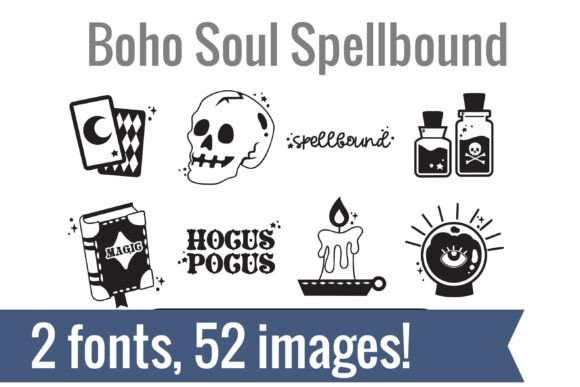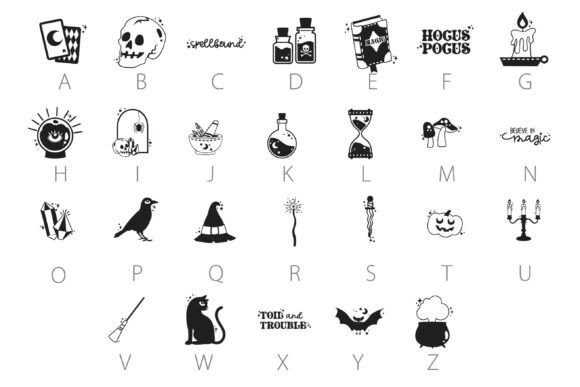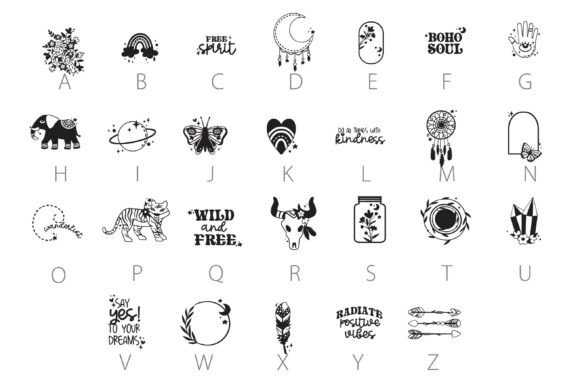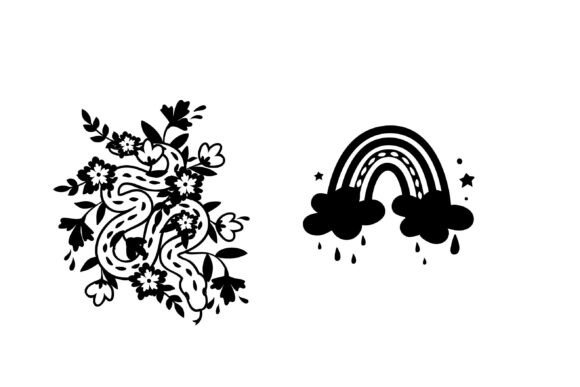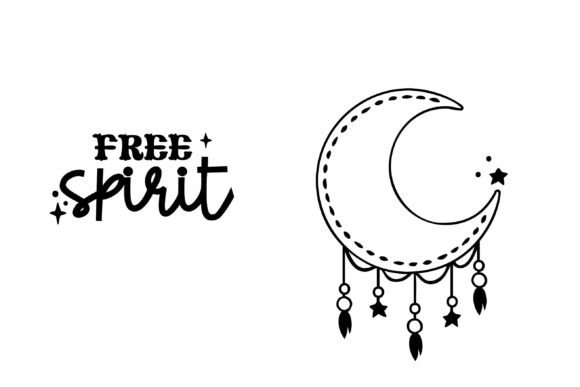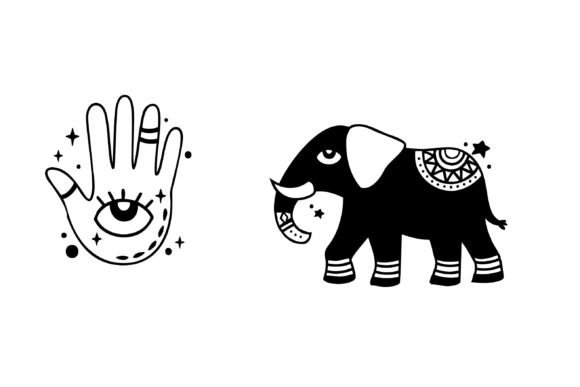
Unlock the Magic of Boho Soul Dingbats Font
Have you ever sat down to create a design, only to find yourself lost in a sea of uninspiring icons and graphics? The struggle is real, but it doesn’t have to be. For designers who crave something more, the Boho Soul Dingbats Font duo is here to set your creativity free.
This enchanting font bundle brings together two beautifully coordinated fonts, each packed with 26 unique illustrations that capture the essence of bohemian beauty and mystical charm. With the Boho Soul Dingbats Font, you’ll have instant access to dozens of scalable designs, from whimsical seasonal icons to intricate frames, all at your fingertips. Perfect for vinyl cutting, paper crafts, planners, and more, these vector-style dingbats are ideal for branding, stickers, journals, apparel, and logos.
- Unique Characteristics: The Boho Soul Dingbats Font features a unique blend of bohemian and soulful elements, with intricate designs and patterns that add a touch of elegance to any design project.
- Characters: The font includes a wide range of characters, including dingbats, icons, and special characters, making it ideal for designers who want to add visual interest to their work.
Designer Review: Boho Soul Dingbats Font
As a designer, I was excited to try out the Boho Soul Dingbats Font. Overall, I think it’s a great addition to any design project that needs a touch of bohemian flair.
What works well: ✨ The font has a lovely, eclectic vibe that’s perfect for creating eye-catching titles, headings, and other display text. The dingbats are also well-designed and add a nice touch of whimsy to any design. The font is also highly customizable, which is a major plus in my book.
Limitations: ⚠️ While the font is great for display text, it can be a bit difficult to read in smaller sizes. I also noticed that some of the dingbats can be a bit pixelated when scaled down, which can be a problem if you’re working on a high-resolution design.
Overall, I’d give the Boho Soul Dingbats Font 4 out of 5 stars. It’s a great choice for designers who want to add a touch of bohemian flair to their projects, but may not be the best choice for designs that require a lot of small text.
Here are some pros and cons to consider:
- ✨ Great for display text and titles
- ✨ Highly customizable
- ⚠️ Can be difficult to read in smaller sizes
- ⚠️ Some dingbats can be pixelated when scaled down
Use the Boho Soul Dingbats Font to add a touch of bohemian charm to your designs. Common use cases include:
1. Creating invitations and party decorations.
2. Designing digital art and illustrations.
3. Adding decorative elements to text and graphics.